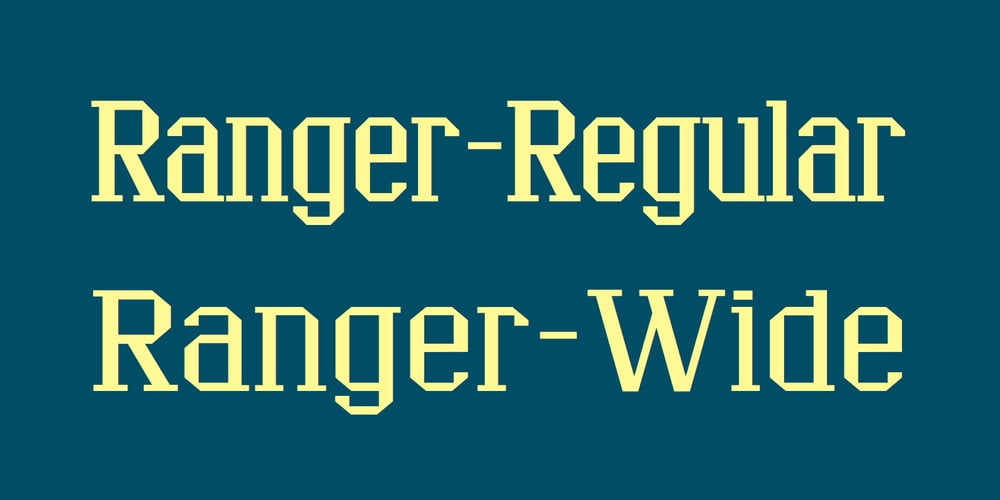
Ranger
Ranger font
Ranger Font Family was designed by Robert Schenk and published by Ingrimayne Type. Ranger contains 2 styles and family package options. Ranger is a geometric font with no curves. The lower-case letters have an extremely high x-height.